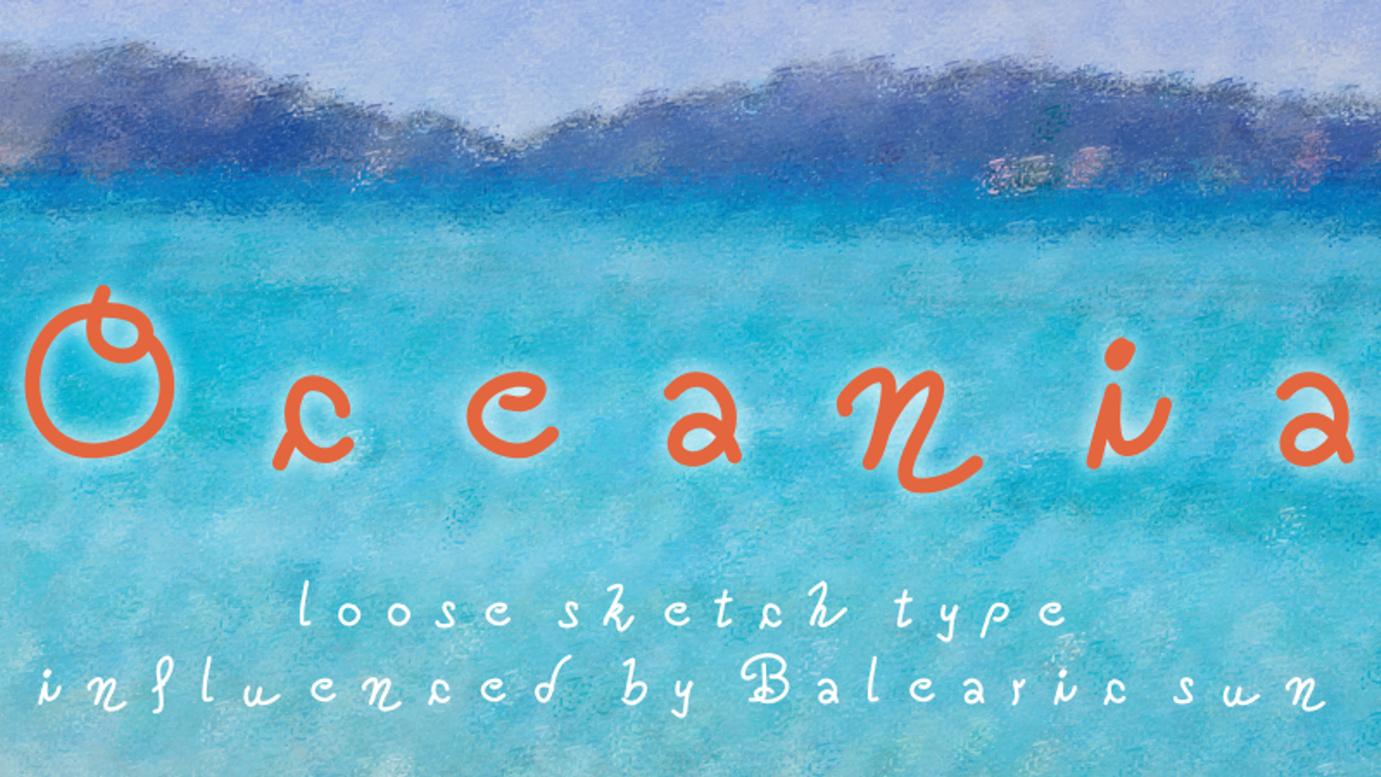
Oceania, a Balearic vacation font
Oceania font is a loose handwriting typeface inspired by Balearic weather. Oceania font can be used to give you sunny holidays aesthetics to your designs.